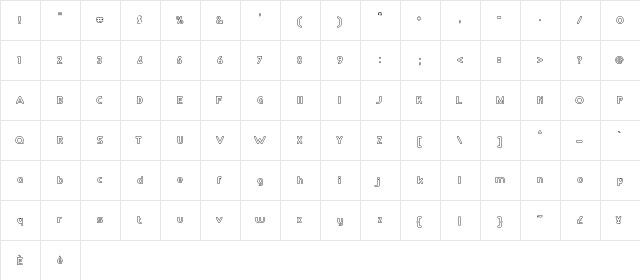
RM Playtime medium Regular
| Designer | Ray Meadows |
Design Context for RM Playtime medium Typeface
RM Playtime medium offers clean, dependable letterforms without strong stylistic allegiance, making it a practical choice for designers who need flexibility.